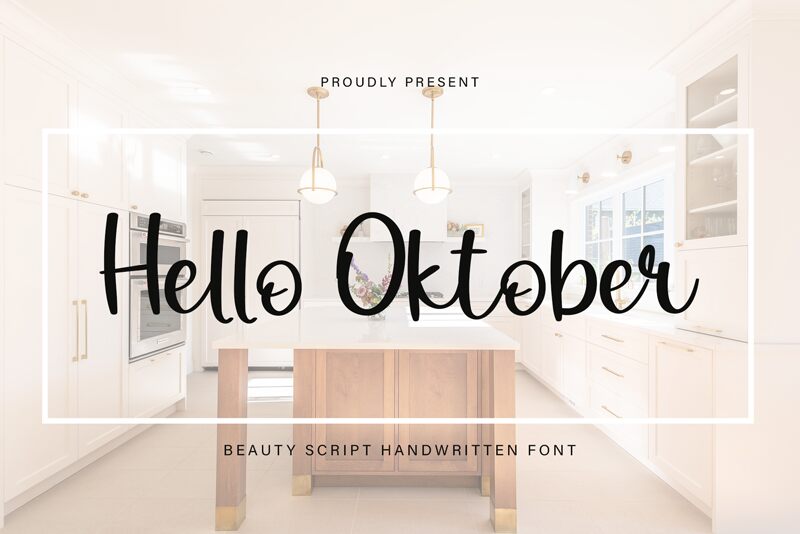
Hello Oktober
Hello Oktober, designed by Etik Fatimah, is a delightful handwritten font that exudes a playful and friendly vibe. With its semi-light weight, this font is perfect for projects that aim to evoke a sense of warmth and authenticity.
Its whimsical style makes it ideal for children's books, greeting cards, and personal blogs. Whether you're creating invitations or crafting social media content, Hello Oktober adds a touch of charm to any design.
Let your creativity flow with this inviting and versatile typeface.